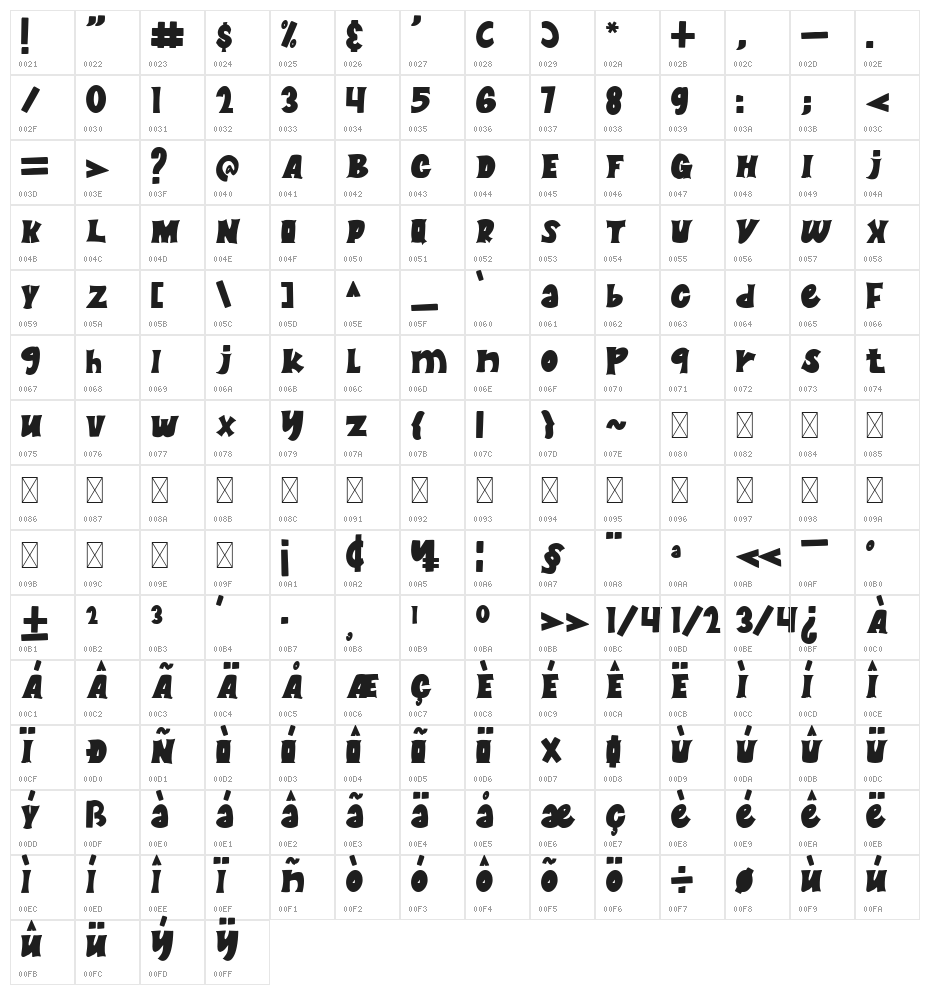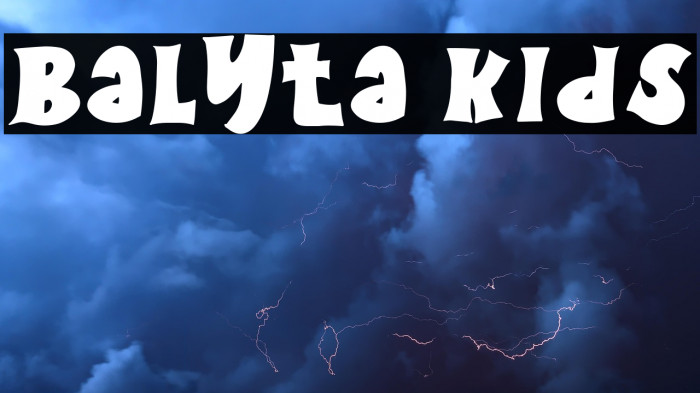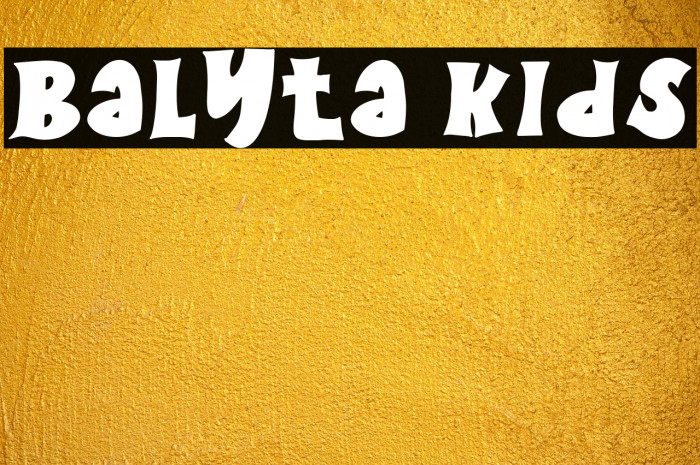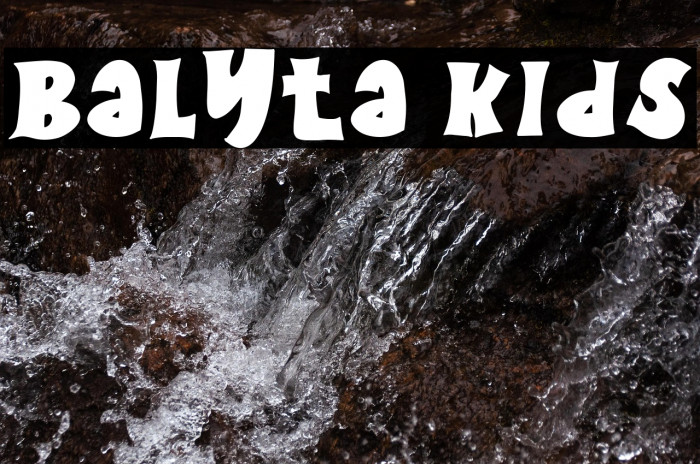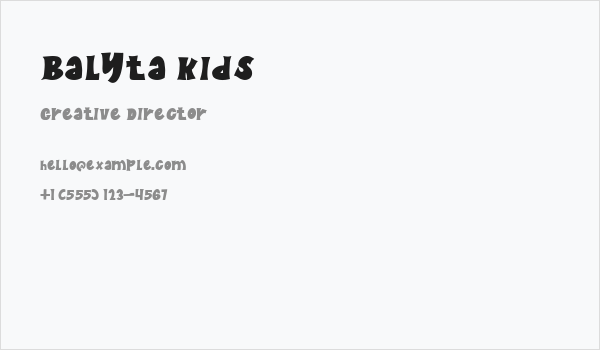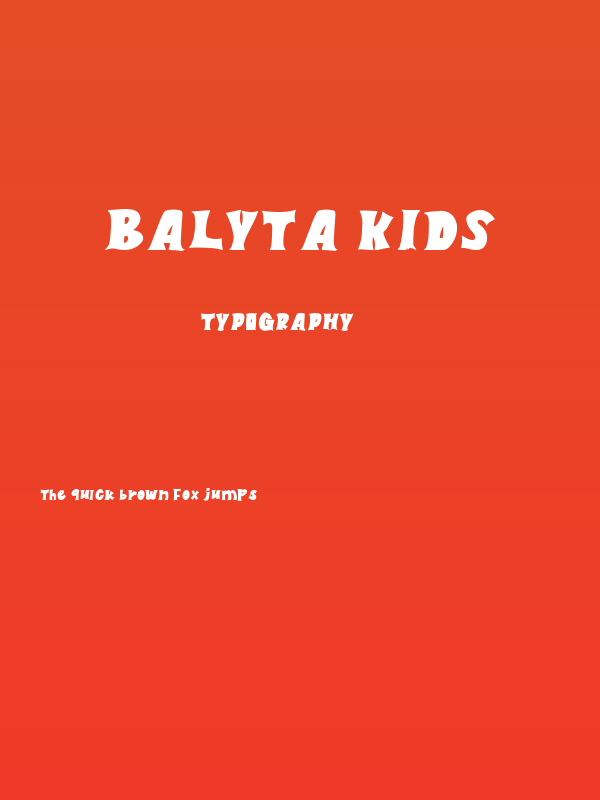
Balyta Kids Font
Balyta Kids Description
This playful and whimsical font features bold, rounded characters with a quirky, uneven design that adds a sense of fun and creativity. The letters have a hand-drawn appearance, with varying stroke thicknesses that give them a dynamic and lively feel. The font includes both uppercase and lowercase letters, numbers, and a variety of special characters, making it versatile for different uses. Its unique style is reminiscent of children's handwriting, making it perfect for projects that require a youthful and energetic vibe.
| Proposed Projects | Ideal for children's books, playful branding, party invitations, and educational materials. |